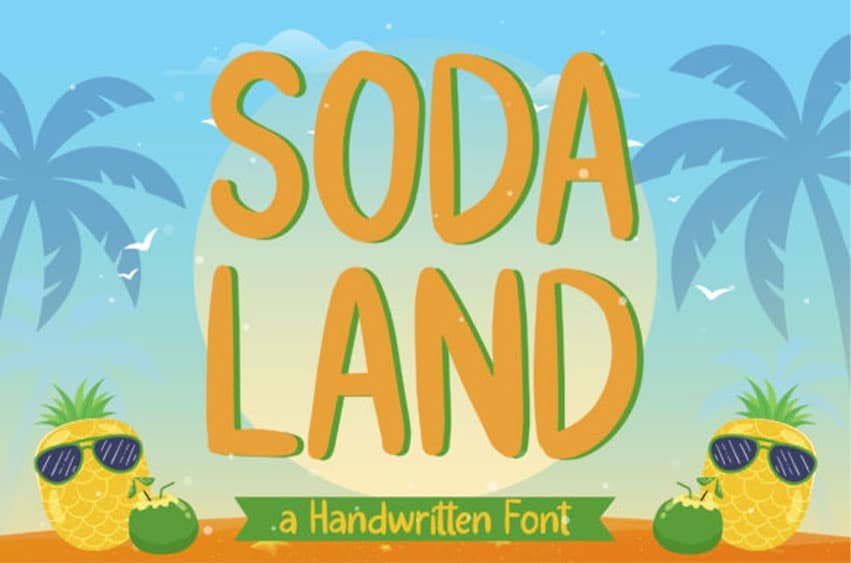
Soda Land Font is a cool, incredibly cute and bubbly display font.
Add to each of your party invitation, swimming gathering or pretty much any design that requires a touch of youth and joy.